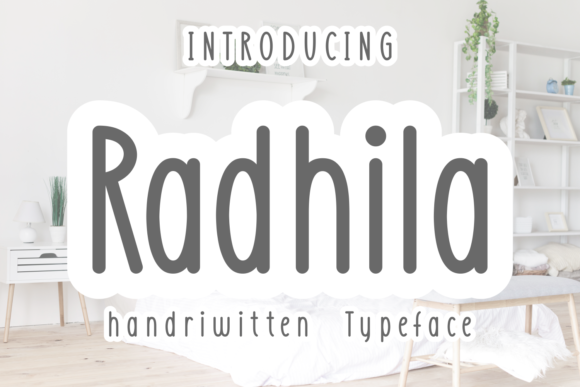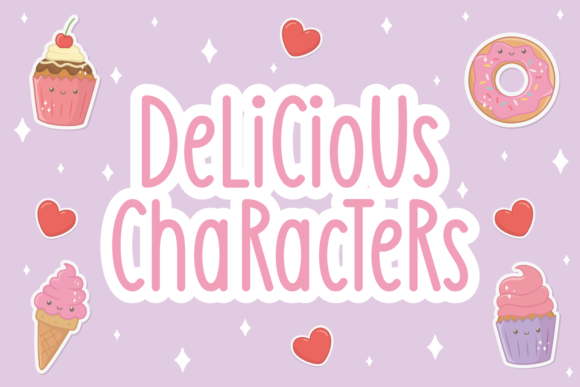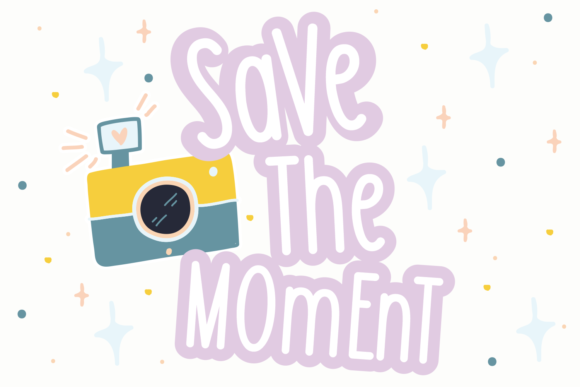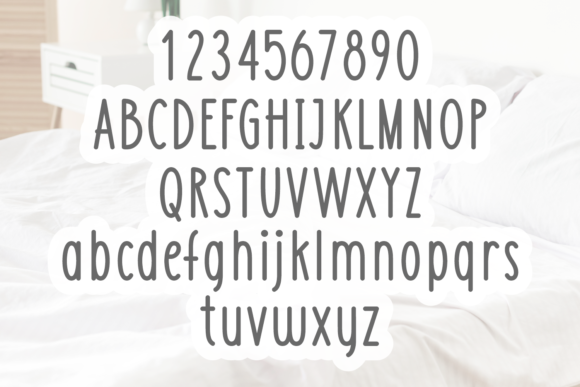
Radhila Font
About Radhila Font
Radhila is a magical handwritten font carefully created with a touch of elegance. Get creative with its outstanding look, and use it to create amazing greeting cards, cute stationery, gorgeous logos and much more!